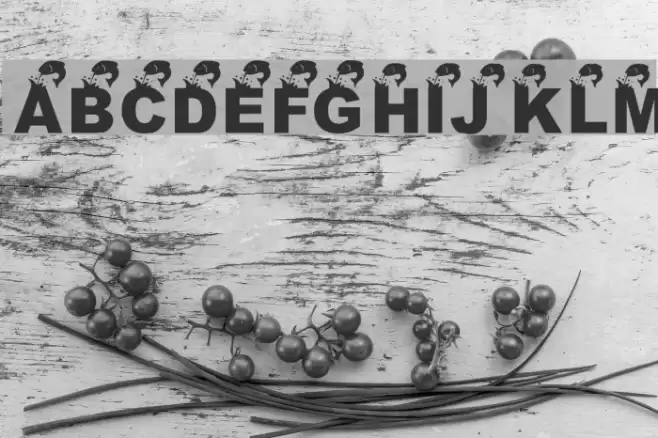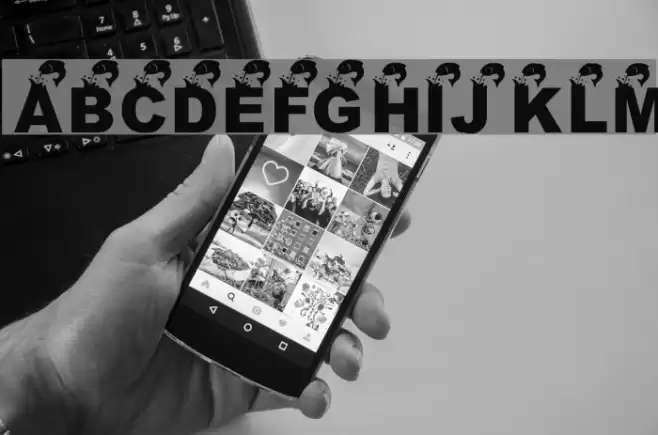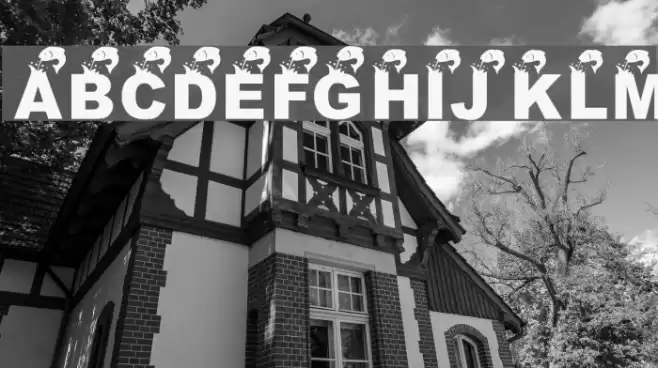
KR Angler Font
KR Angler Description
This font features a bold, geometric sans-serif style with a strong presence. Each character is crafted with clean lines and a uniform stroke width, providing a modern and assertive appearance. The uppercase letters are particularly striking, with a consistent height and width that enhances readability. The numbers are equally bold, maintaining the same geometric precision as the letters. This font is ideal for making a statement, whether in headlines or logos, due to its commanding and straightforward design.
A bold, geometric sans-serif font with a modern and assertive style from Uncategorized fonts.
- Proposed Projects: Ideal for branding, advertising, and editorial design where a strong, modern look is desired.